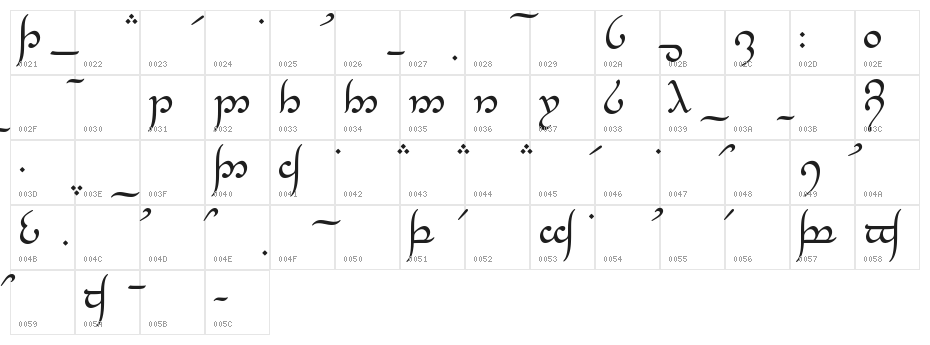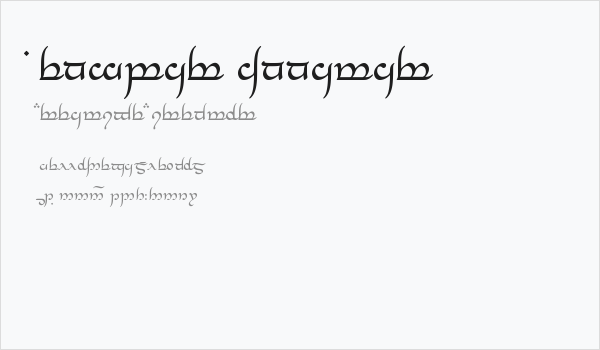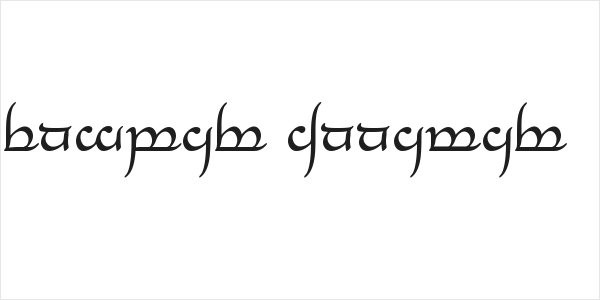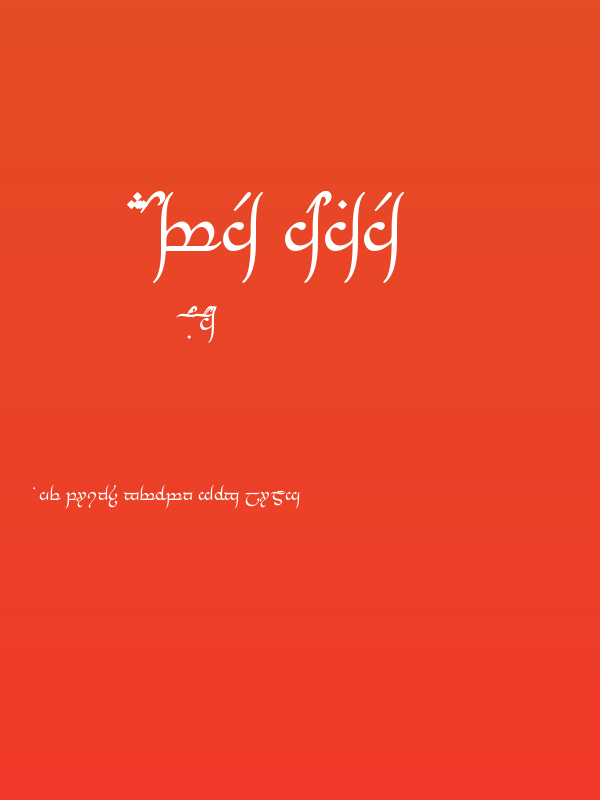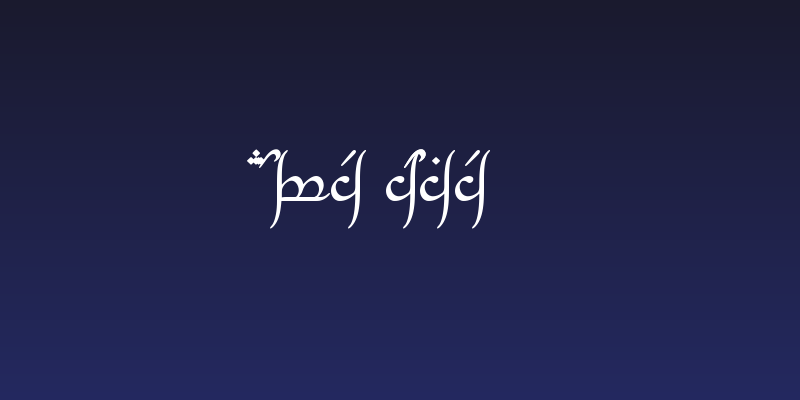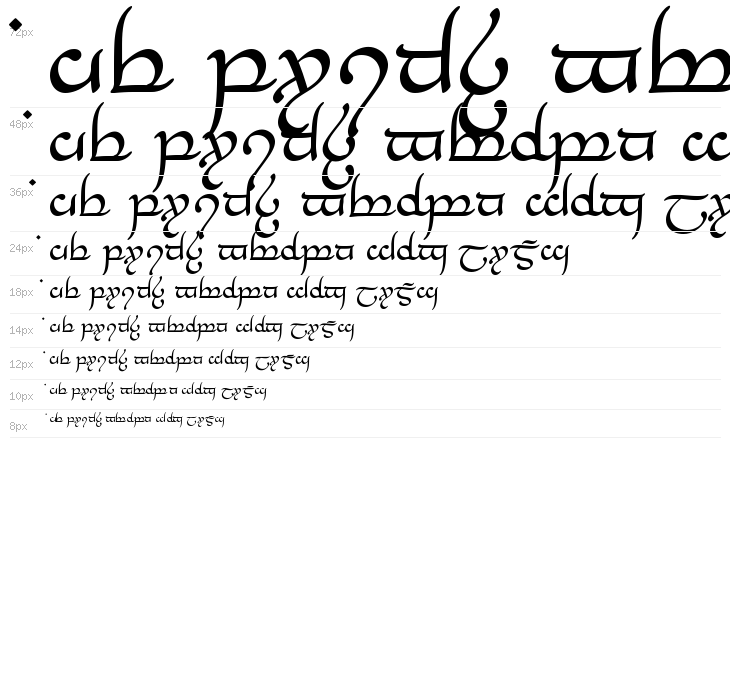
Tengwar Annatar Font
Tengwar Annatar Description
This font is a decorative script inspired by the Tengwar script, known for its elegant and intricate design. The characters are highly stylized with flowing lines and ornate curves, reminiscent of calligraphy. Each letter is distinct, with unique flourishes that give the font an artistic and fantastical appearance. The overall aesthetic is reminiscent of ancient scripts, making it ideal for projects that require a touch of fantasy or historical ambiance. The font's design is both intricate and legible, with a consistent flow that maintains readability while showcasing its decorative elements.
| Use Case | Logos, Titles, Decorative text |
| Proposed Projects | Ideal for fantasy-themed projects, book covers, movie titles, or any design requiring an ancient or mystical feel. |